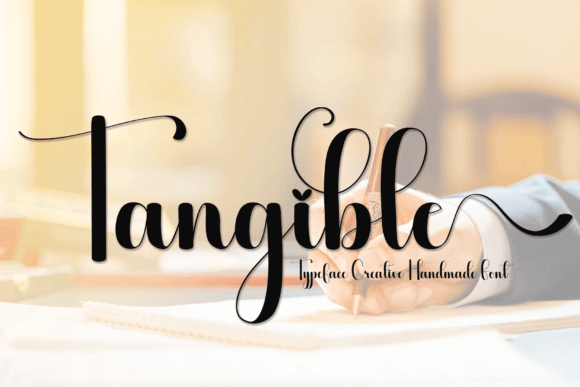
Journey into a world of captivating elegance with Tangible Font, an enchanting script font that will leave you spellbound. This font, meticulously crafted by the talented andikastudio, is the epitome of grace and fluidity, flowing effortlessly across your digital canvas like liquid poetry.
Unleash your creativity with Tangible Font's incredibly distinct and timeless style, adding a touch of magic to every project you undertake. Witness the beauty of its elegant curves, the subtle nuances that breathe life into each letterforms, and the captivating rhythm that dances across each word.
With Tangible Font, your designs will transcend the ordinary and embrace the extraordinary. Its ethereal presence will elevate your marketing campaigns to new heights, casting a spellbinding charm on your audience. Whether you're crafting social media posts, designing websites, or creating breathtaking logos, Tangible Font will transform your words into works of art.
Invite Tangible Font into your projects and let your imagination soar. It's the perfect font for those seeking a touch of whimsical flair, a hint of mystery, or a dash of timeless elegance. From heartfelt wedding invitations to enchanting Halloween greetings, Tangible Font will add a touch of magic to every occasion.